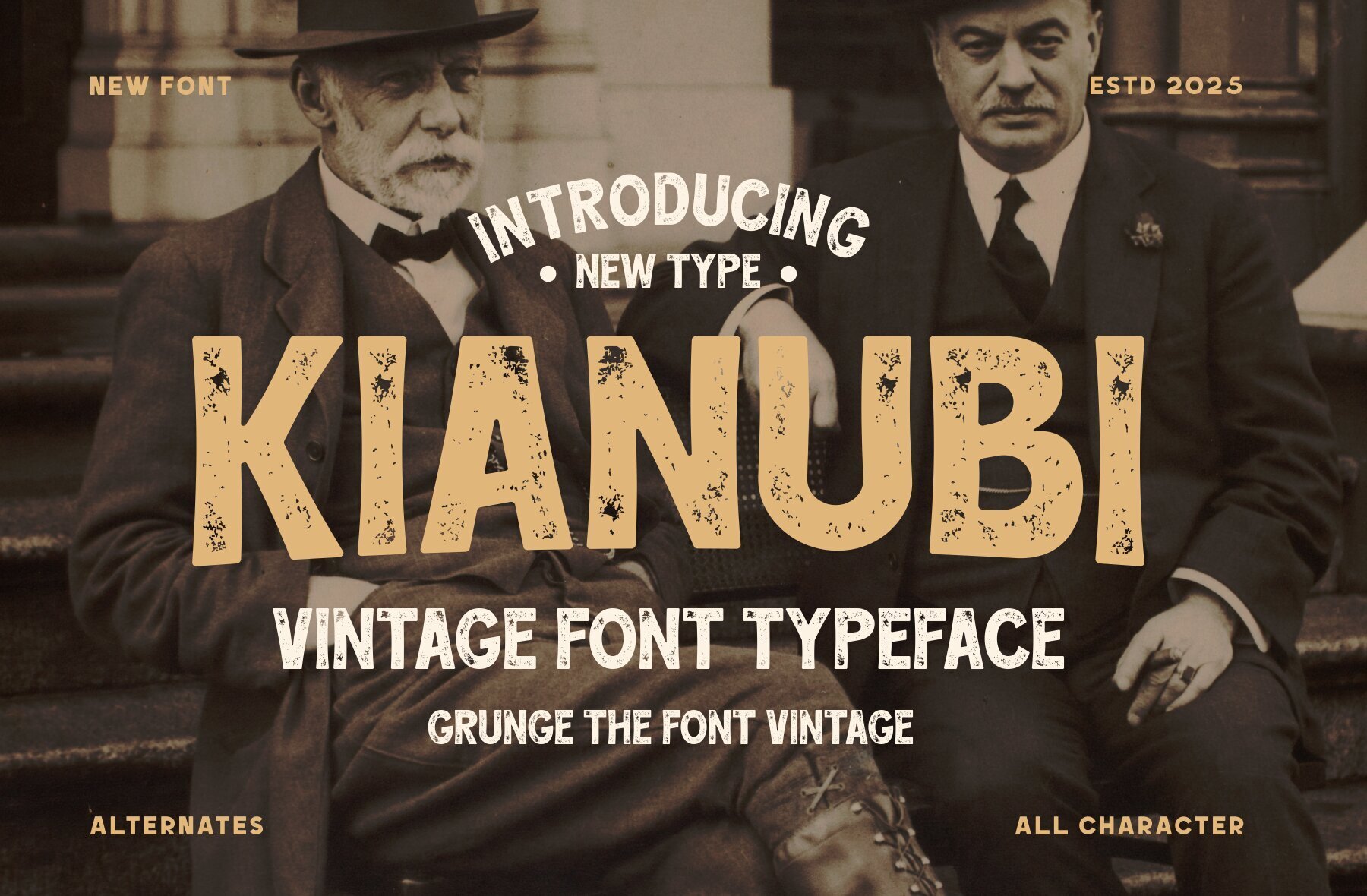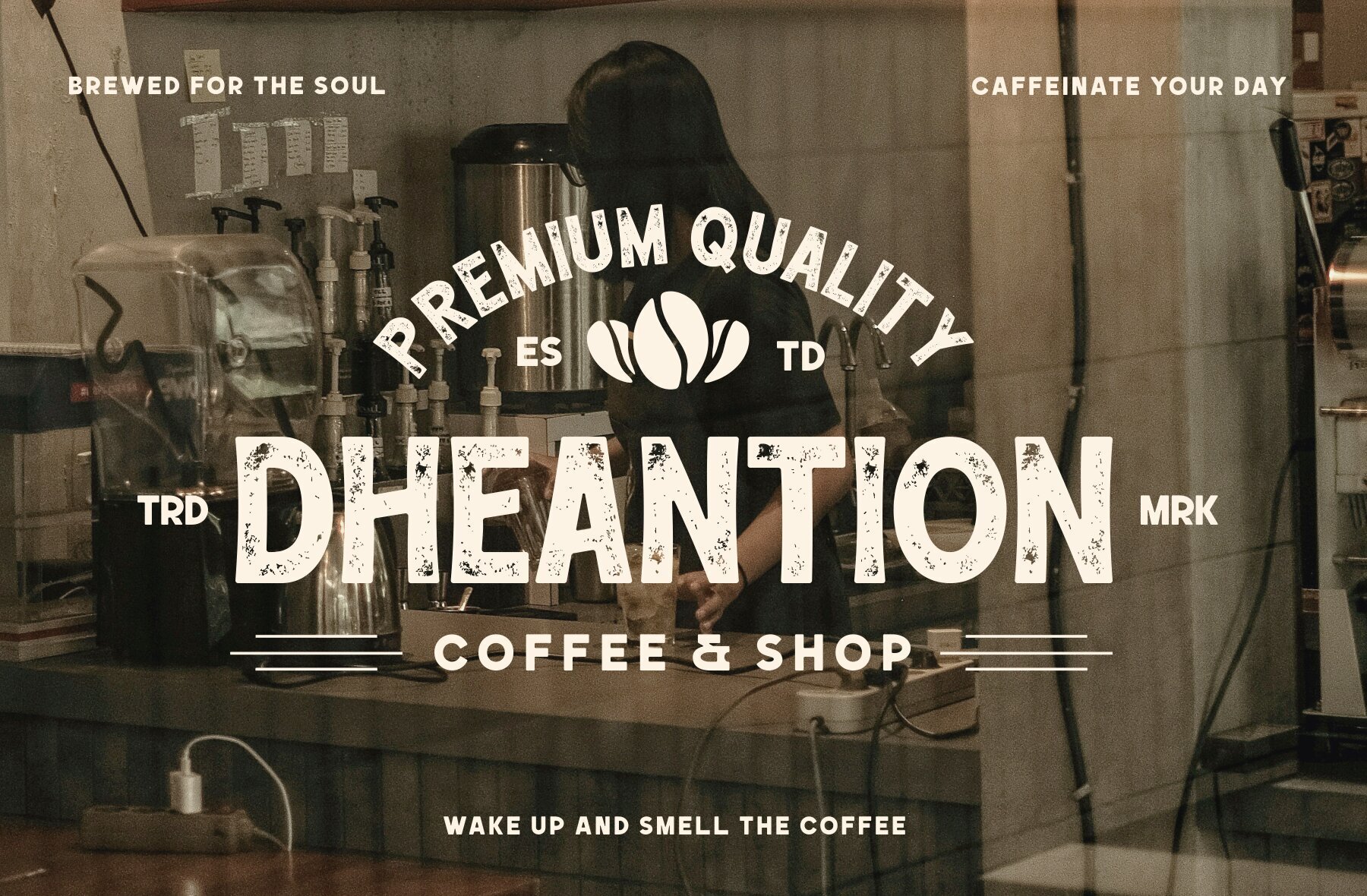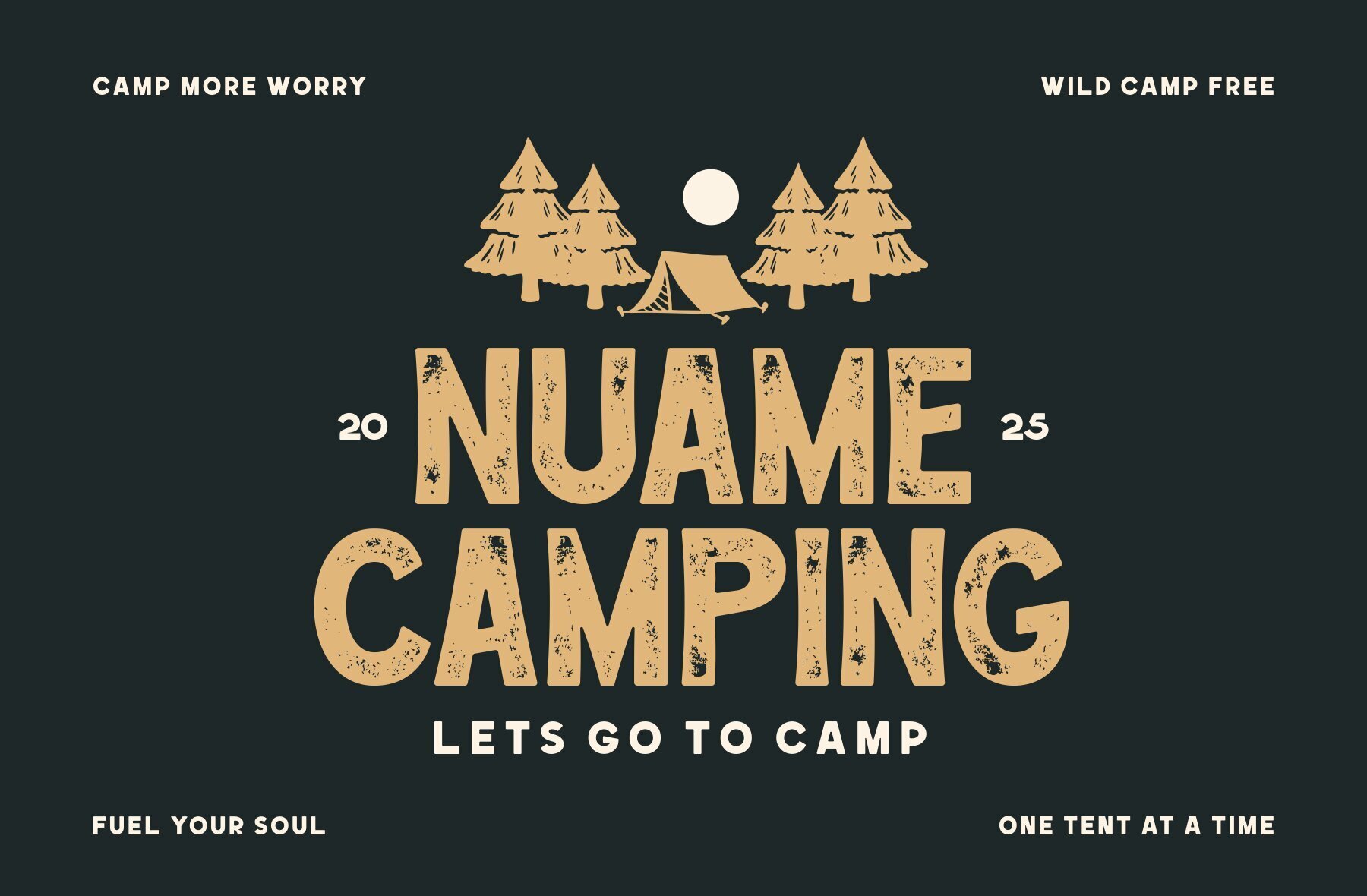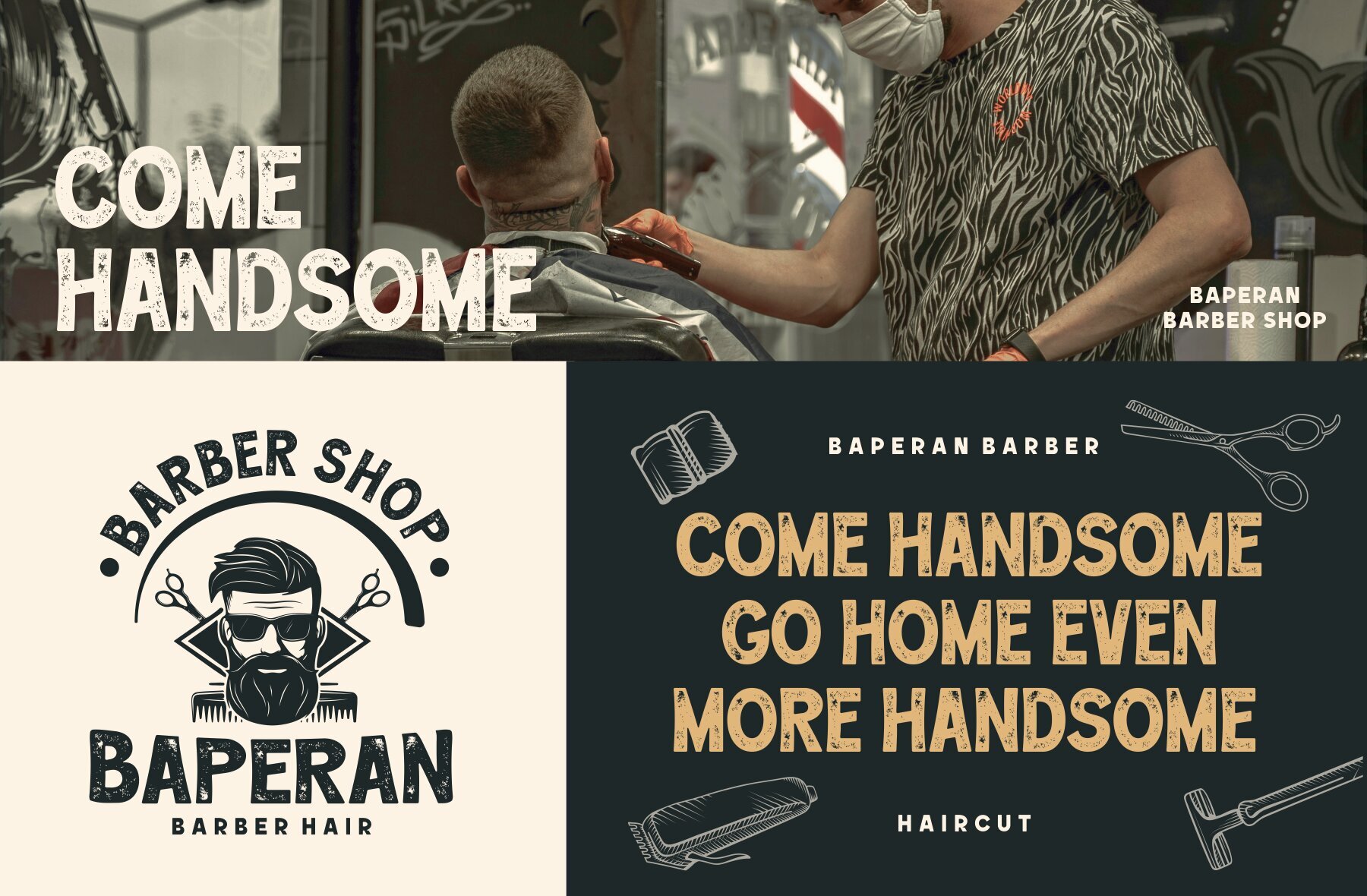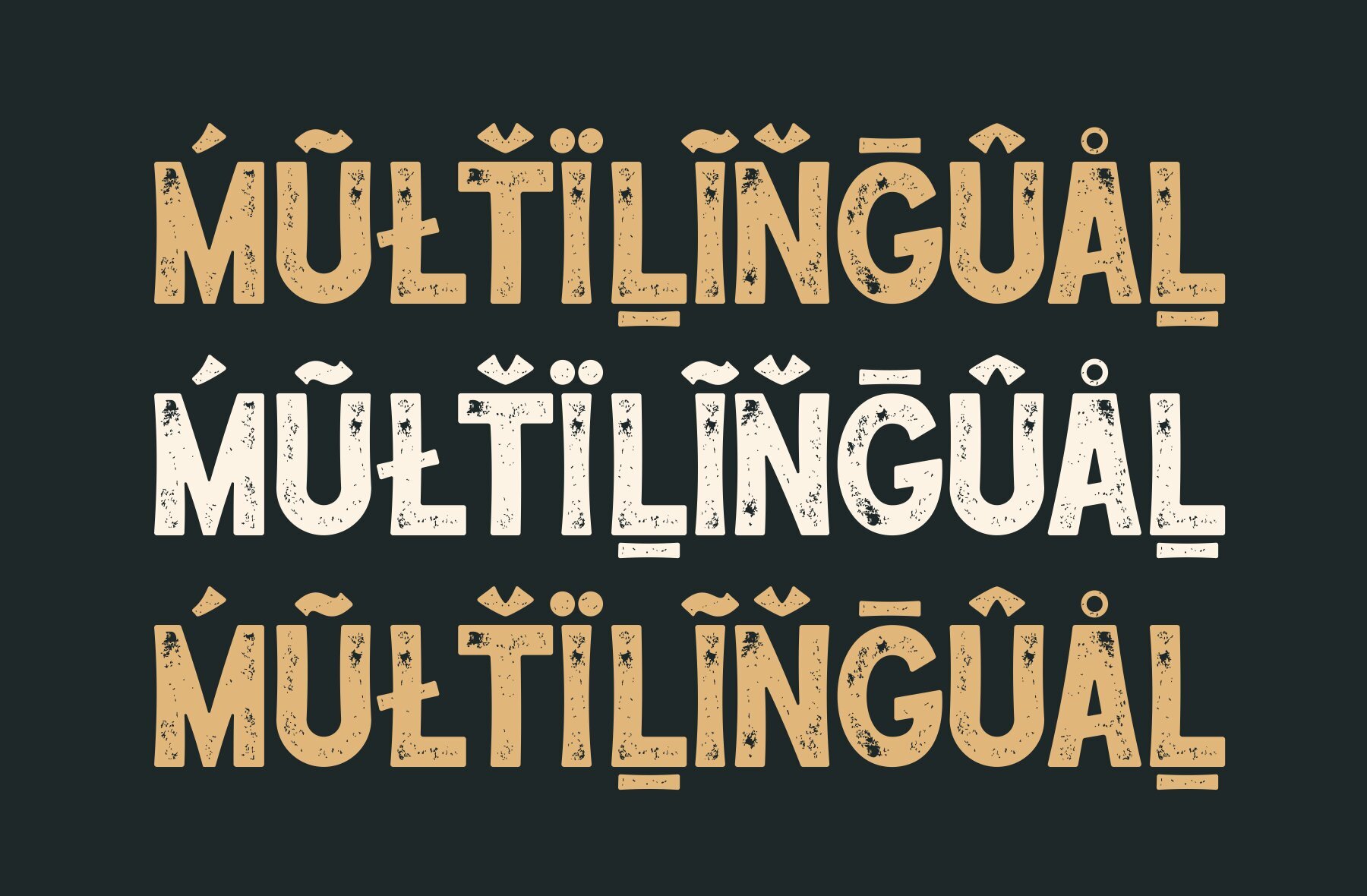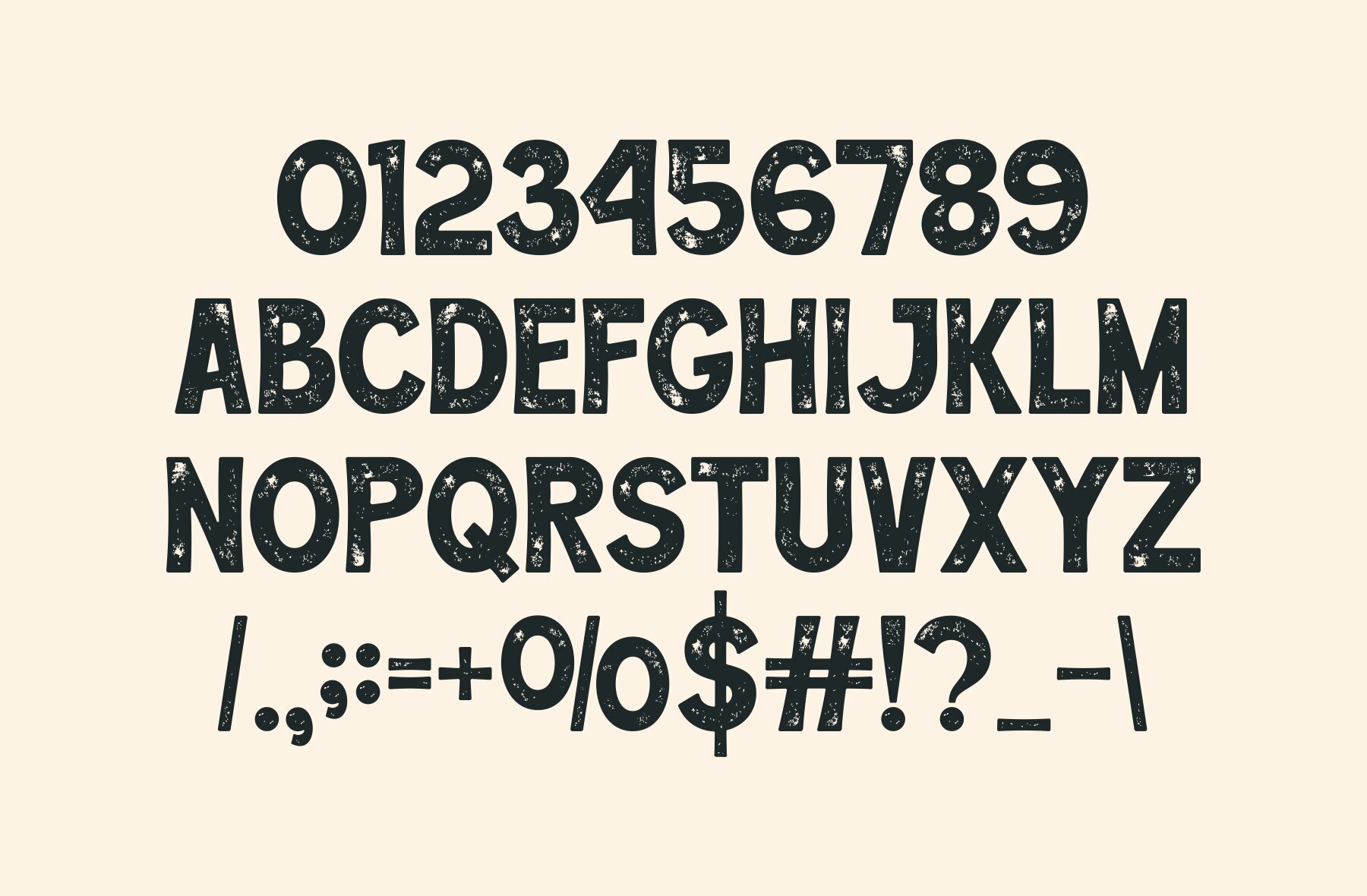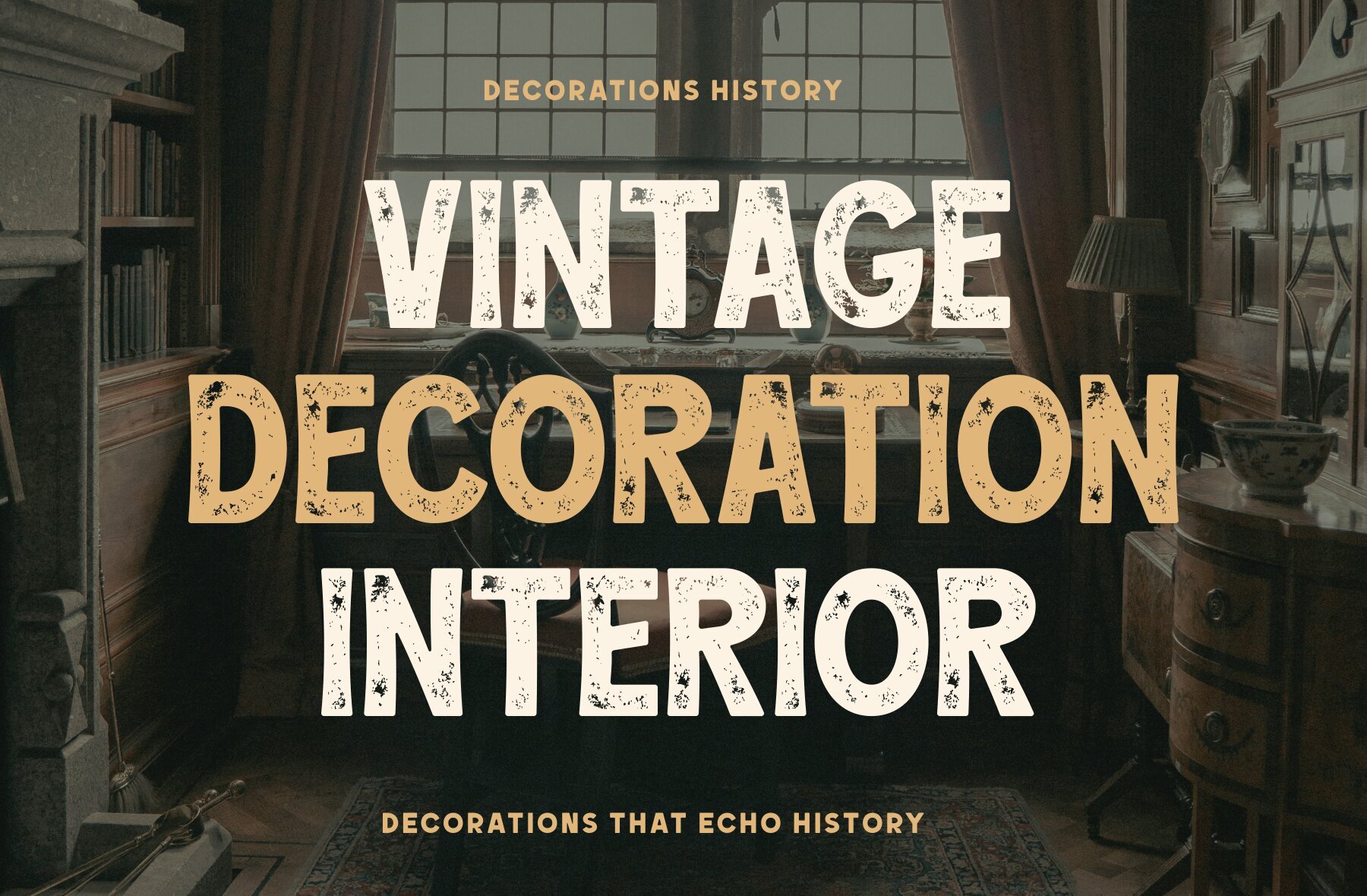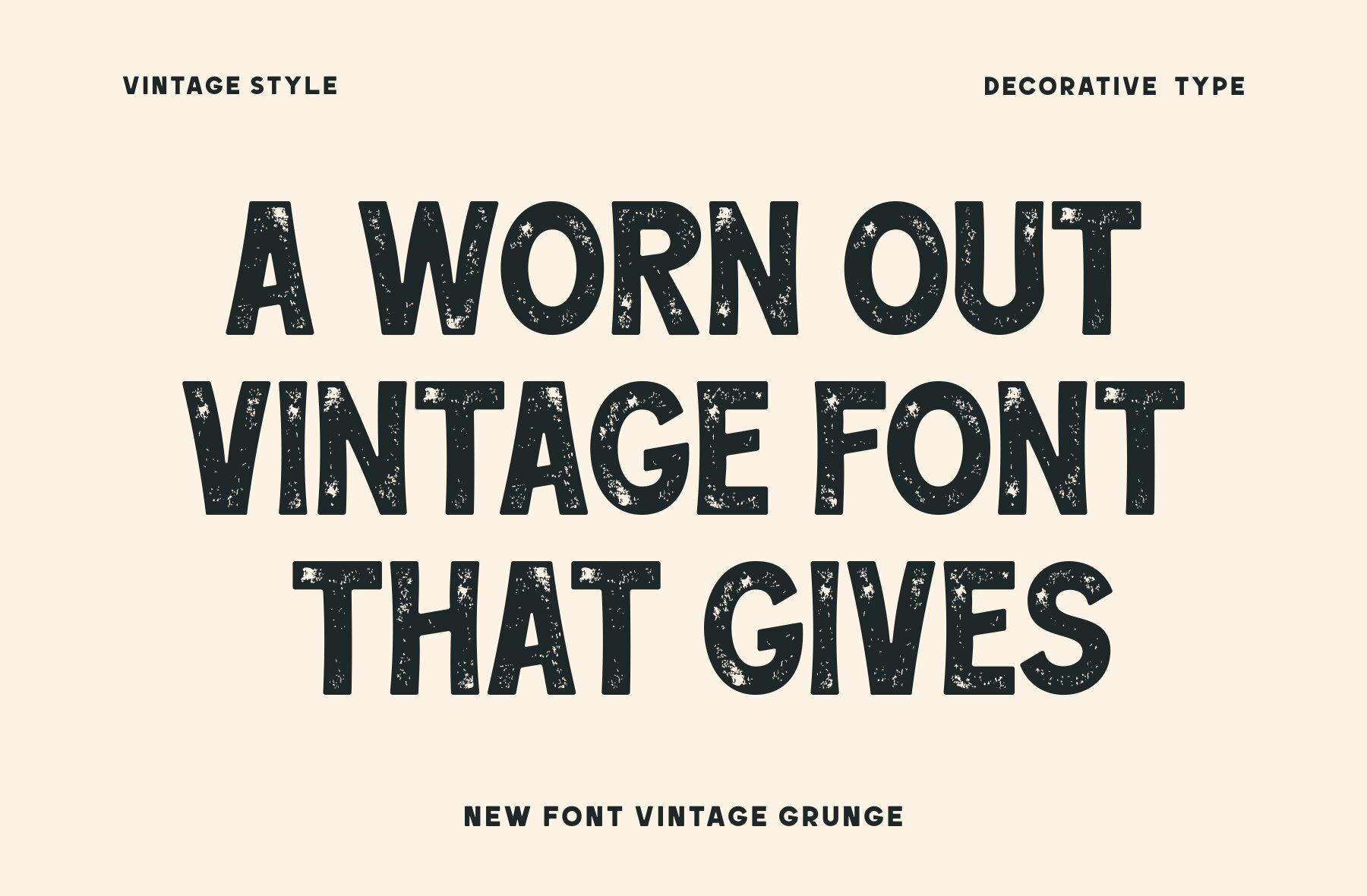
Kianubi Font
KIANUBI
Typography plays a pivotal role in design, and Kianubi captures attention with its vintage flair and contemporary adaptability. Suitable for an array of design contexts, this typeface offers a clean and professional aesthetic. Its simplicity underscores its visual appeal, positioning it as an invaluable asset for both traditional and modern typography.Kianubi: A Versatile Vintage Typeface